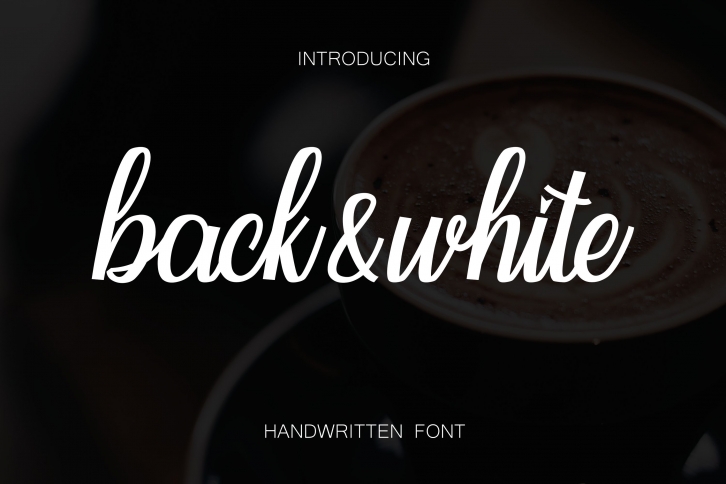
Back&white is a well balanced handwritten font. This versatile script font has a wide spectrum of applications ranging from greeting cards to headlines and is guaranteed to add an enchanting feel to your next project. Back&white is PUA encoded which means you can access all of the glyphs and swashes with ease!